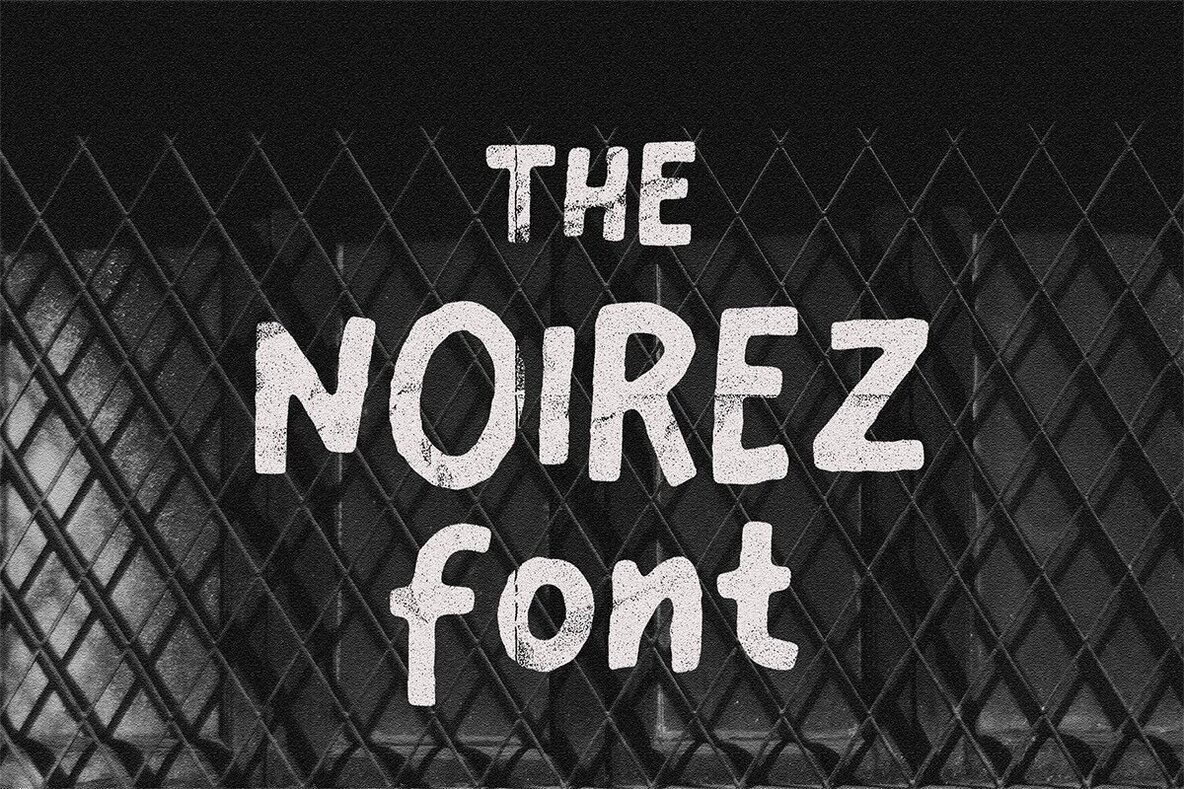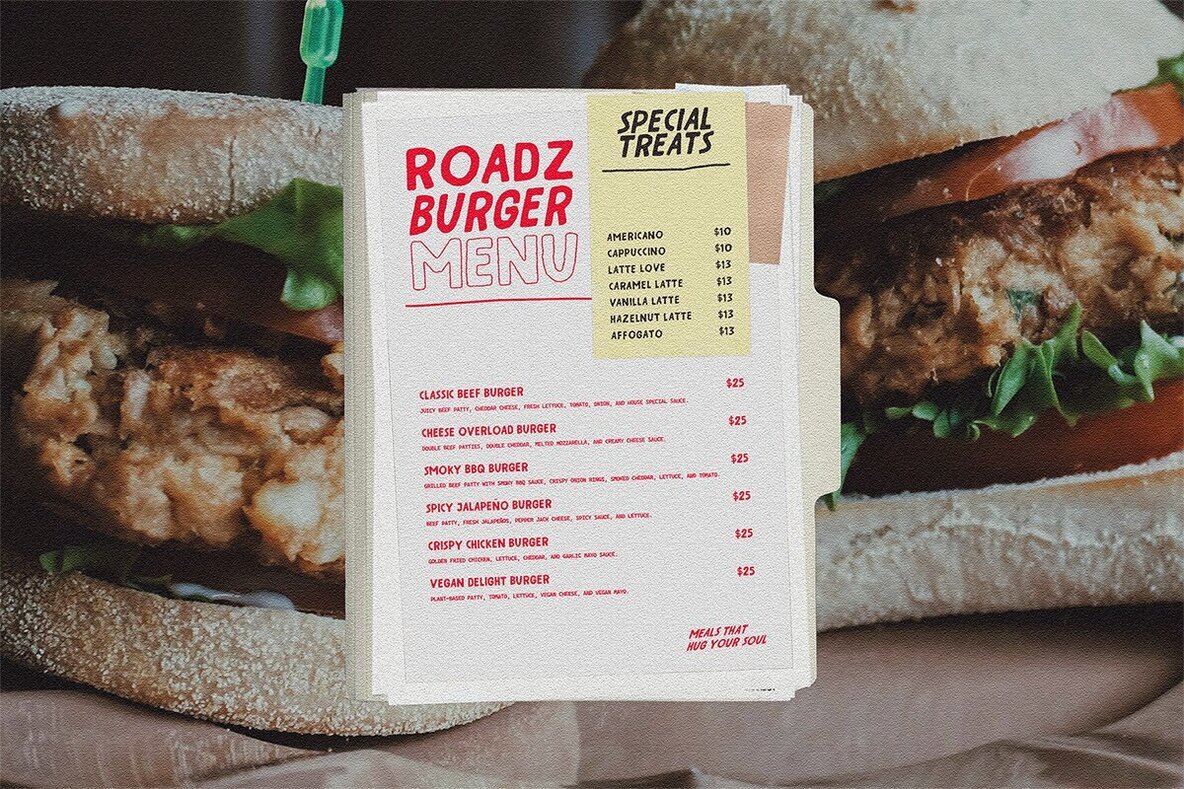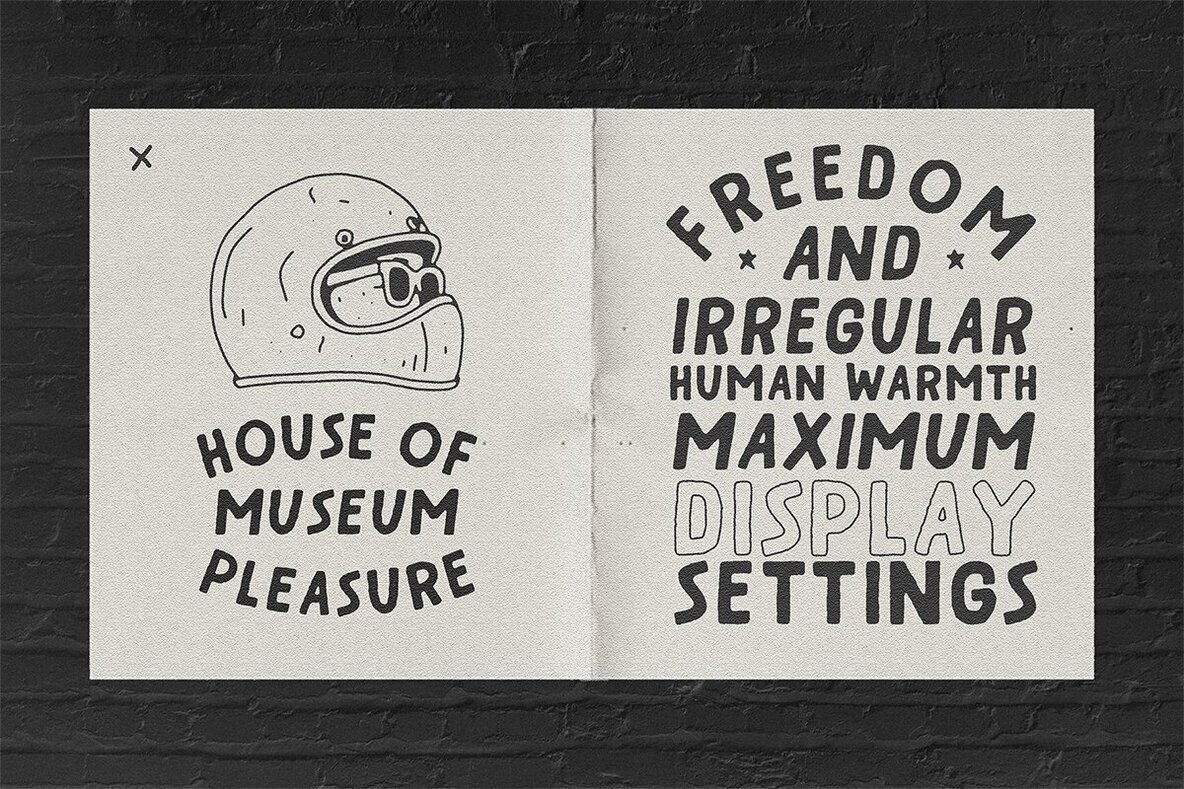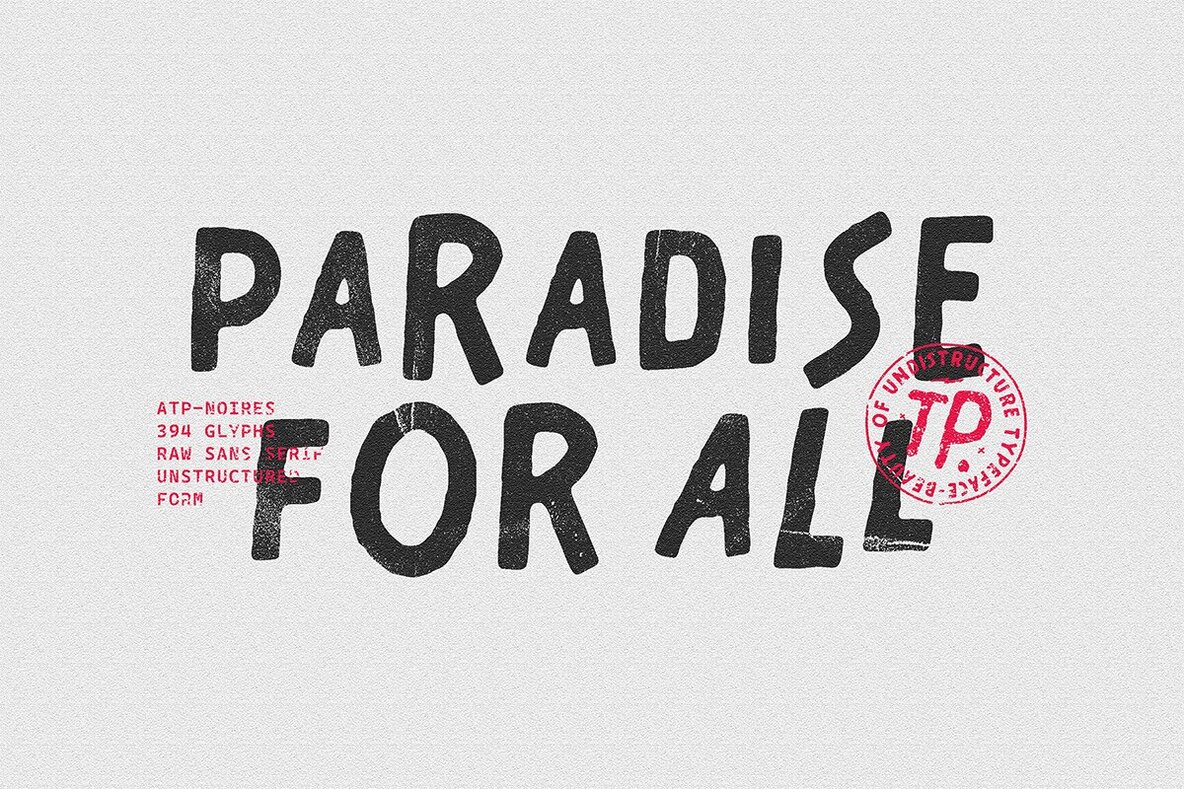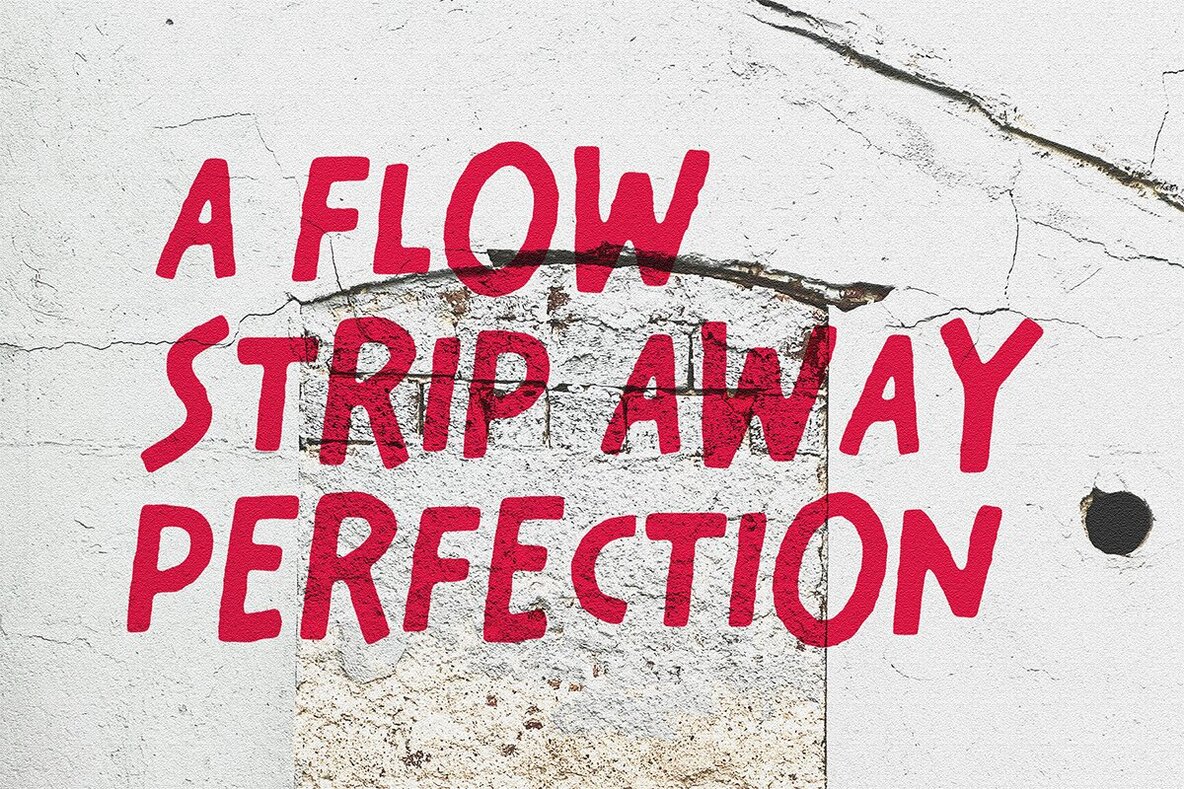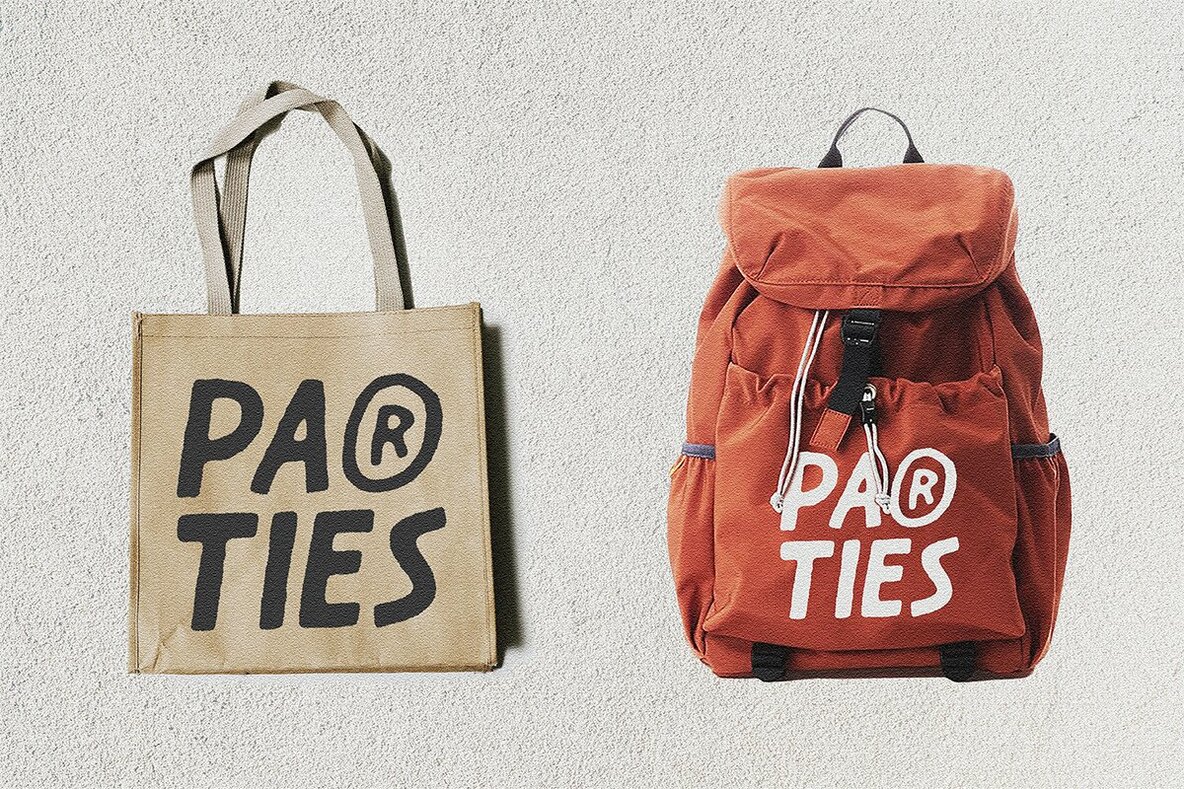
Noirez Font
Noirez offers a bold sans serif design with an unmistakable sense of character. Each letter is shaped by hand-drawn strokes that feel raw and organic, embracing a distinctive roughness along the edges. This relaxed imperfection gives the font an honest charm, making every word feel genuine and spirited. Noirez stands out for its confident, casual attitude. It brings a rebellious twist to branding, posters, or any project that calls for authenticity. Ideal for designers who value personality over polish, Noirez holds attention while maintaining an easy, approachable energy.Noirez Sans Serif Font